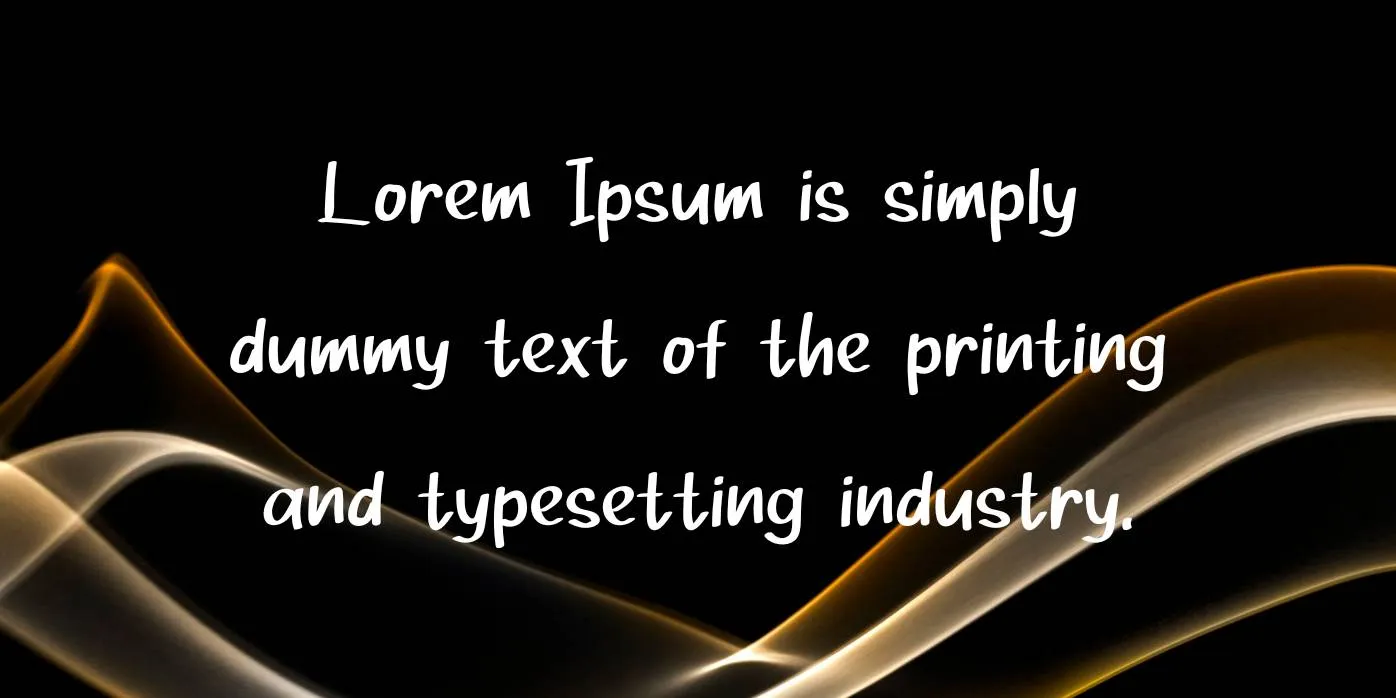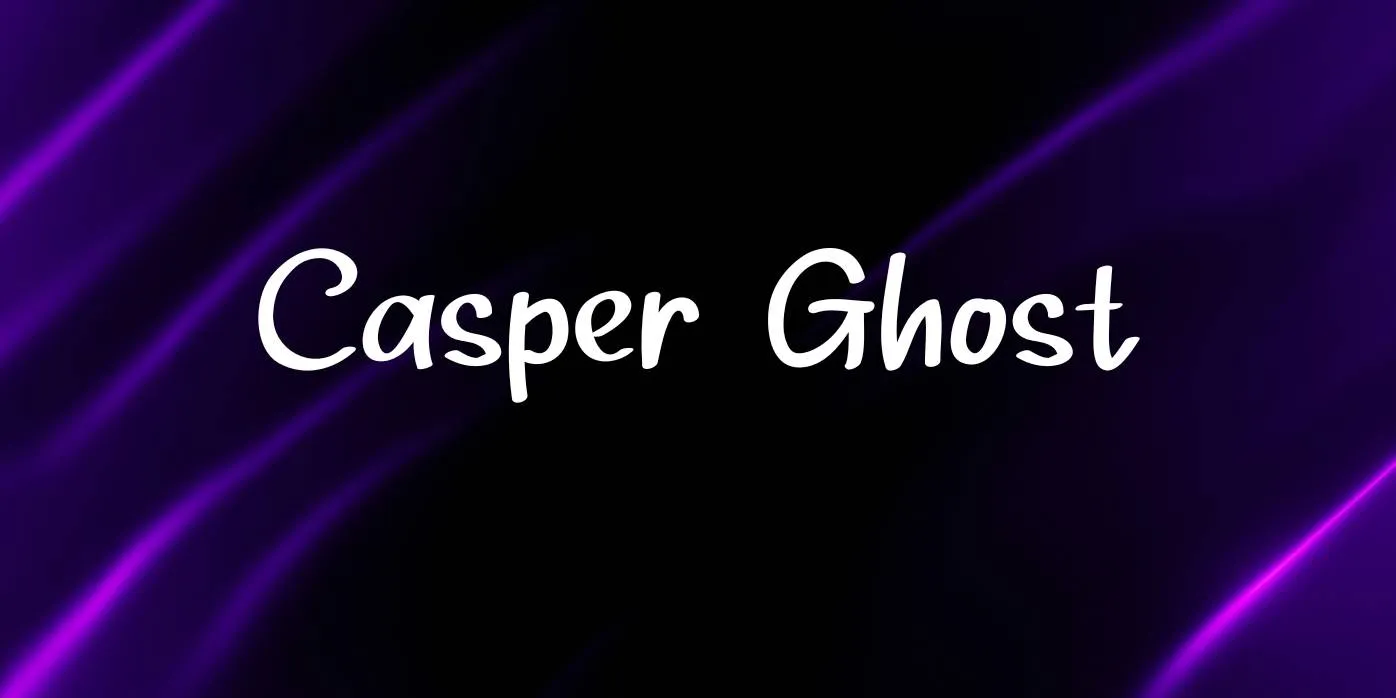
Casper Ghost Font
Today we discuss detailed information about Casper Ghost Font. It is a very fun-loving font. It was designed by Mohammad Taufiq HadayatUllah and Manufactured by SheillaType. The weight of this stunning typeface is semi-light and its width is medium (normal).
This stunning typeface has different types of characters such as symbols, small letters, capital letters, special characters, and numbers. It was based on a movie-friendly ghost cartoon. This font can be used to make comic and scary movie titles. It is a very good choice for use on all types of mobile screens small or large.
This font is also used for big desktop monitors. Logo designs for different projects can also be made using this font. For making motion graphics and other print designs it is also a good option. You can use it to make different types of book covers and to do product packing.
Website headers can also be made using this font. For digital advertisement, it is a very good font to use it can be made for flyers, posters, and blogs. Its versatility is suitable for both printing and digital media. For making all kids-related items like story books, comic & scary story books, fun items, and cartoons it is considered the best font.
It was designed for use on screens. It has a large x-height and wide proportions to use on so many different devices. Is Casper Ghost typeface on Windows? Yes, It can be used on Windows.
It was designed by Sheilla Type. It can be used to make many comics and other projects. This font was based on the movie Casper the Friendly Ghost.